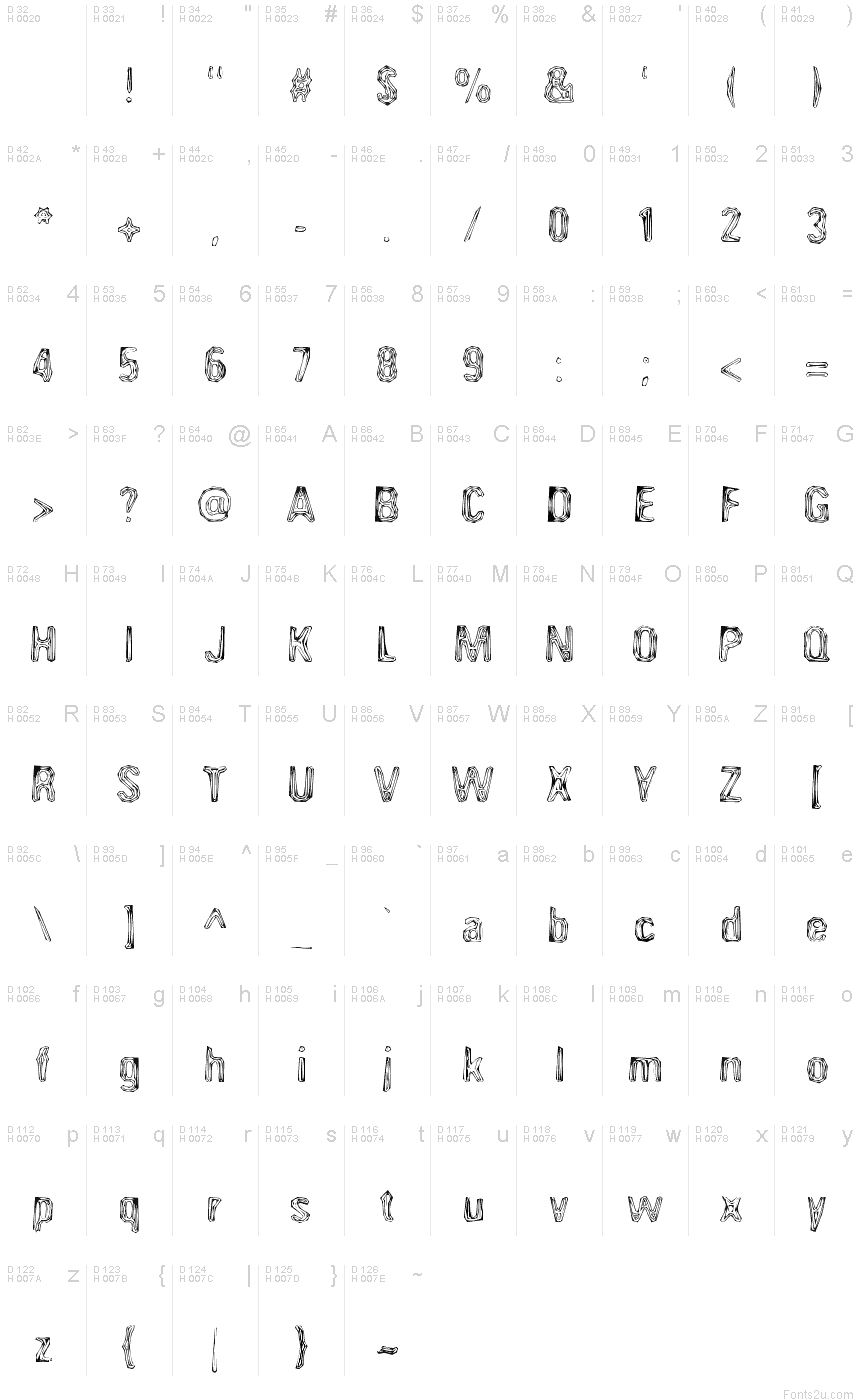
Angioma AOE
Angioma AOE font by Astigmatic One Eye is a free decorative display typeface that looks like letters carved out of tangled veins or topographic lines. Each character is built from layered, wobbly contours that jitter and pulse, giving text a raw, biological energy. The forms stay wide and legible, but the interior line work feels nervy and hand-drawn, like ink that wouldn’t sit still on the page.
Using Angioma AOE, headlines instantly pick up a creepy, clinical, or experimental mood that’s hard to fake with textures alone. This free font works beautifully for horror posters, medical or anatomy-themed graphics, sci‑fi book covers, escape room branding, and eerie album art. Keep it big so the internal maze of strokes can breathe, and pair it with a clean geometric sans to balance its chaotic, organic texture.